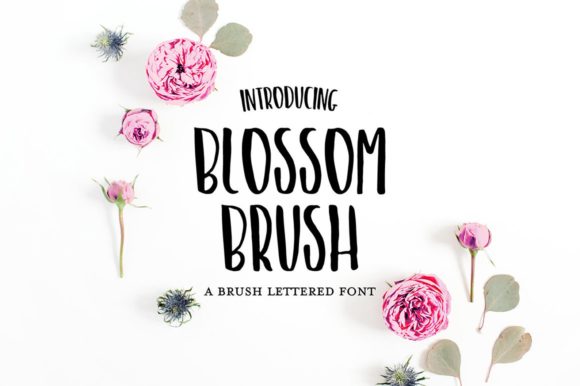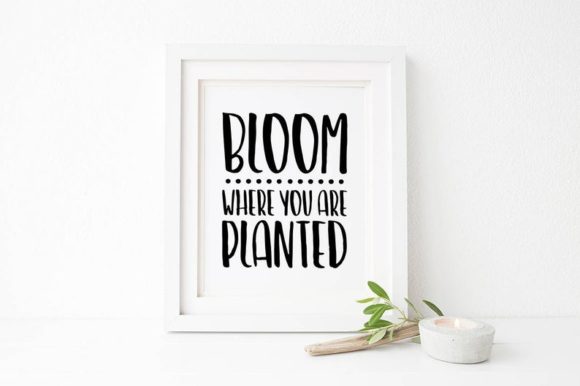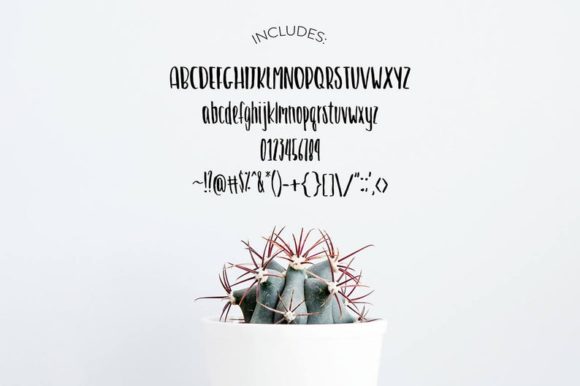
Blossom Brush Font
About Blossom Brush Font
Blossom Brush is a delicate, and sweet handwritten font. It has beautiful and well balanced characters and as a result, it matches a wide pool of designs. Add it to your most creative ideas and notice how it makes them come alive!